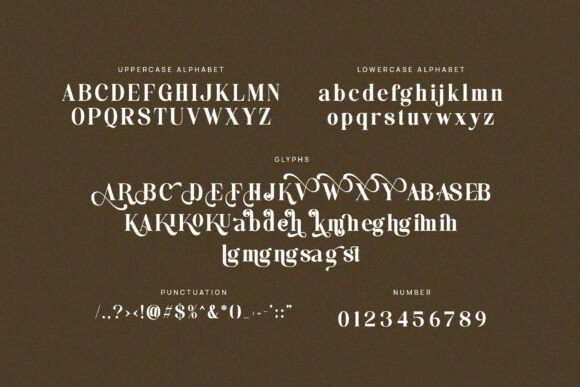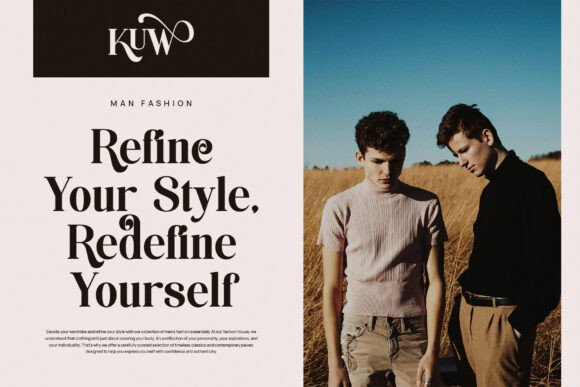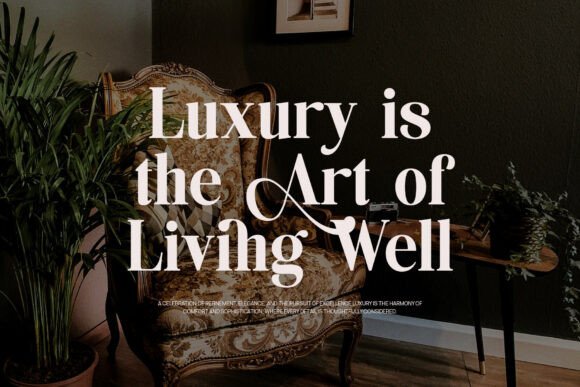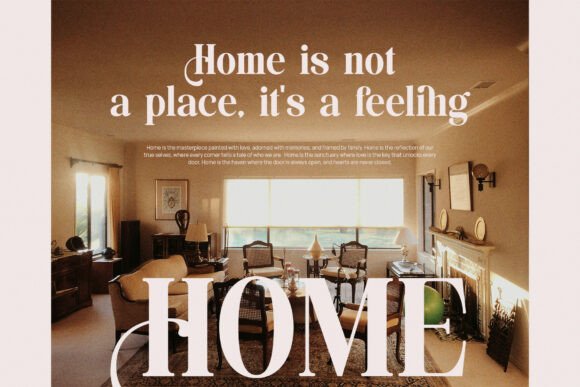
Introduction to Hakinge Font
Hakinge is a lovely and timeless serif font.
Hakinge Font offers exceptional quality and versatility, making it a valuable addition to your design toolkit. Whether you’re creating for personal projects or commercial use, Hakinge Font delivers professional results.